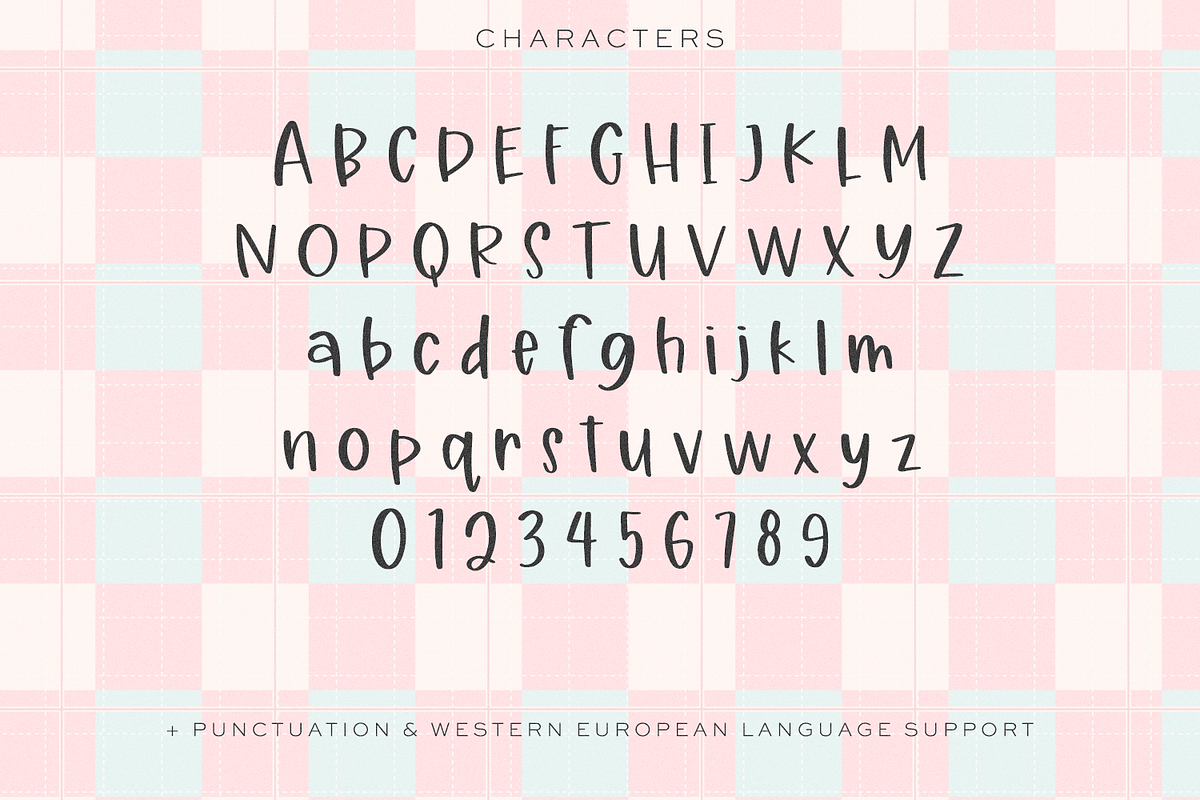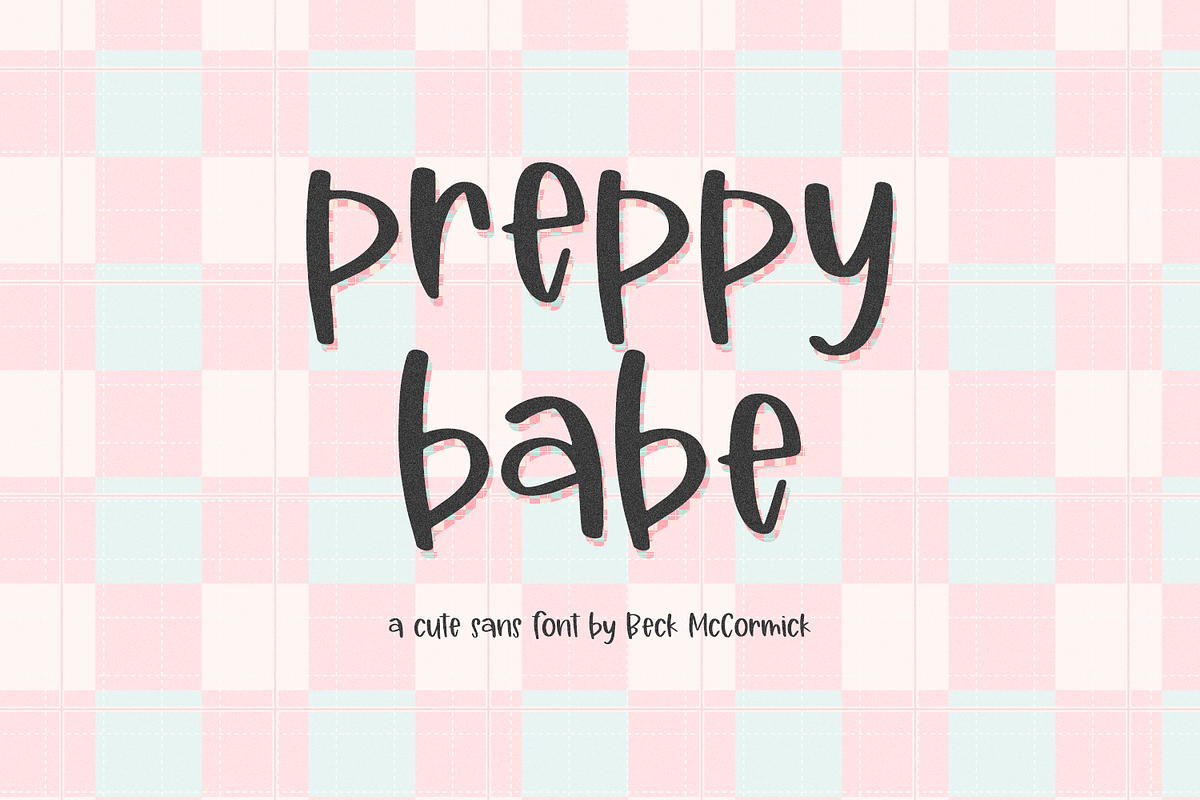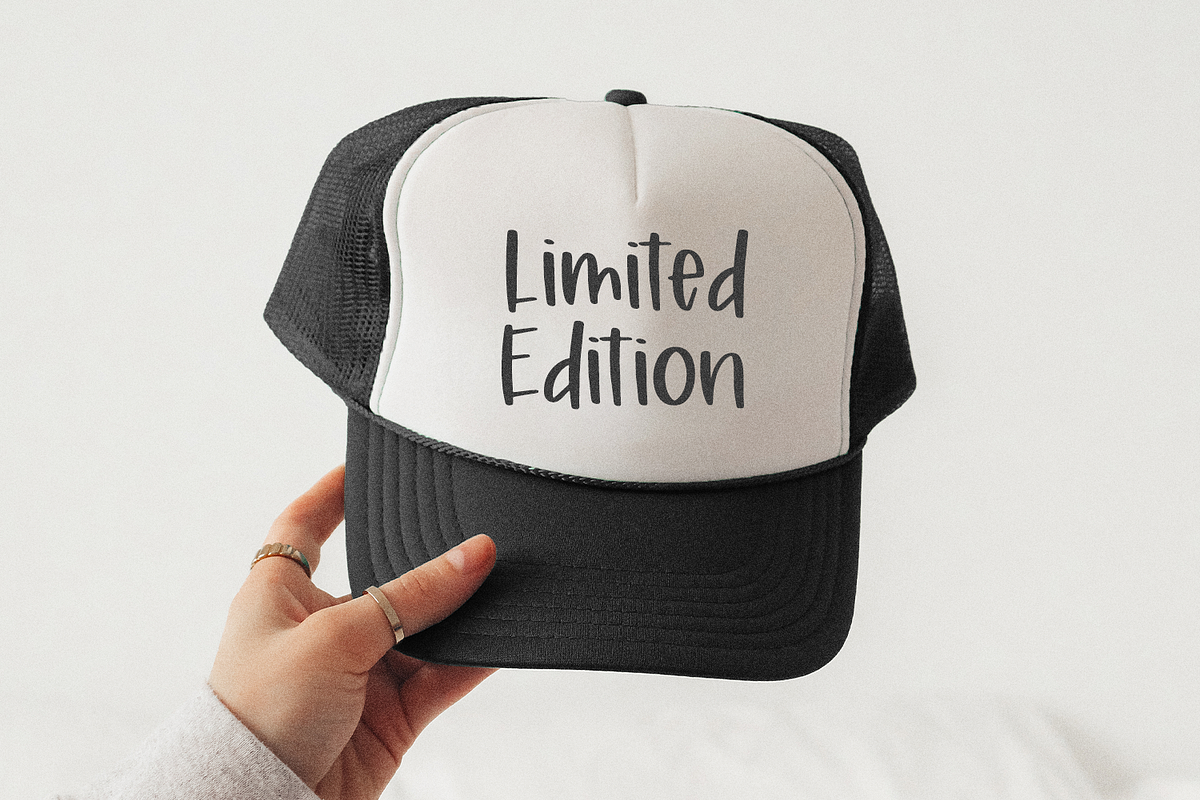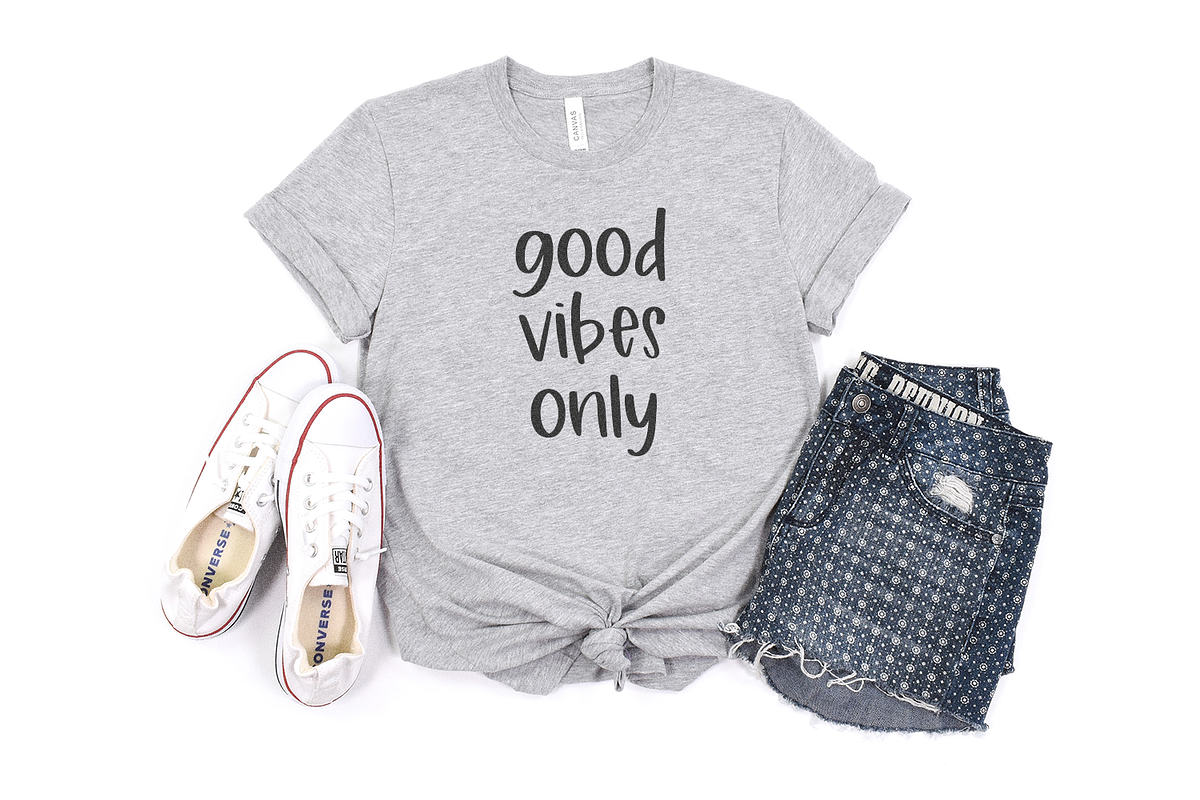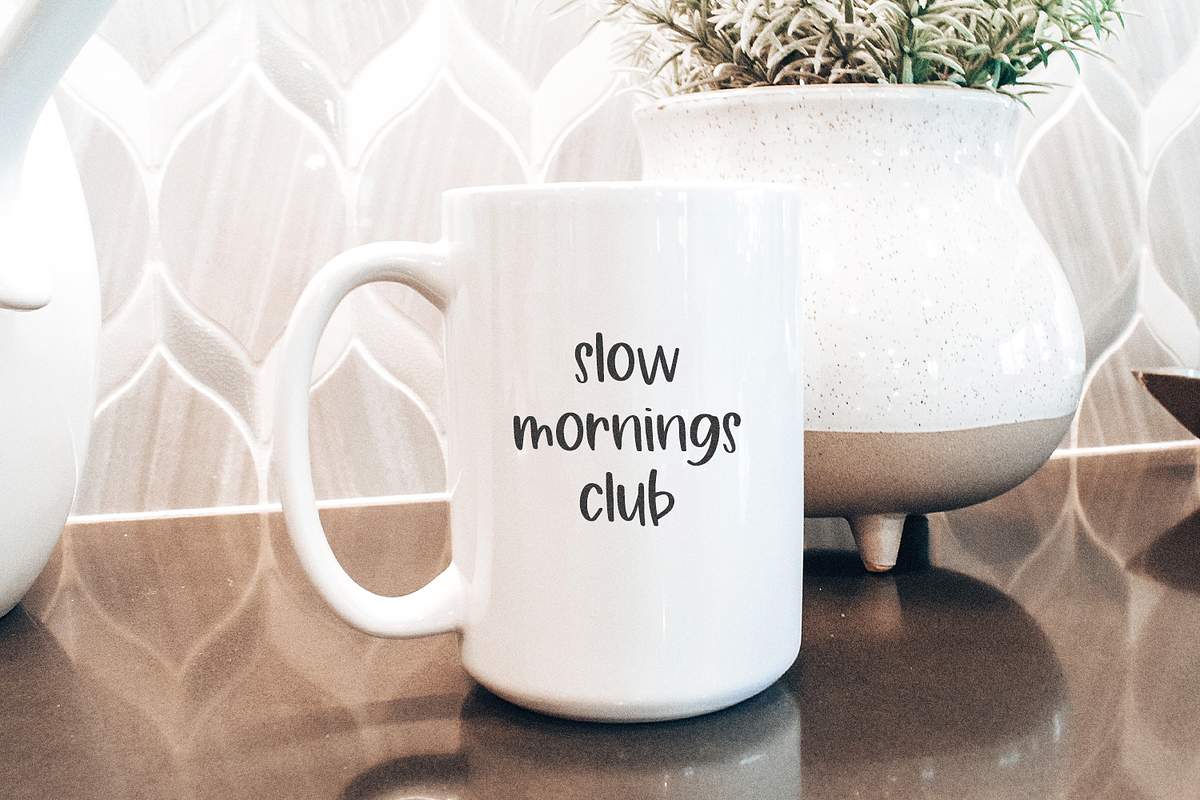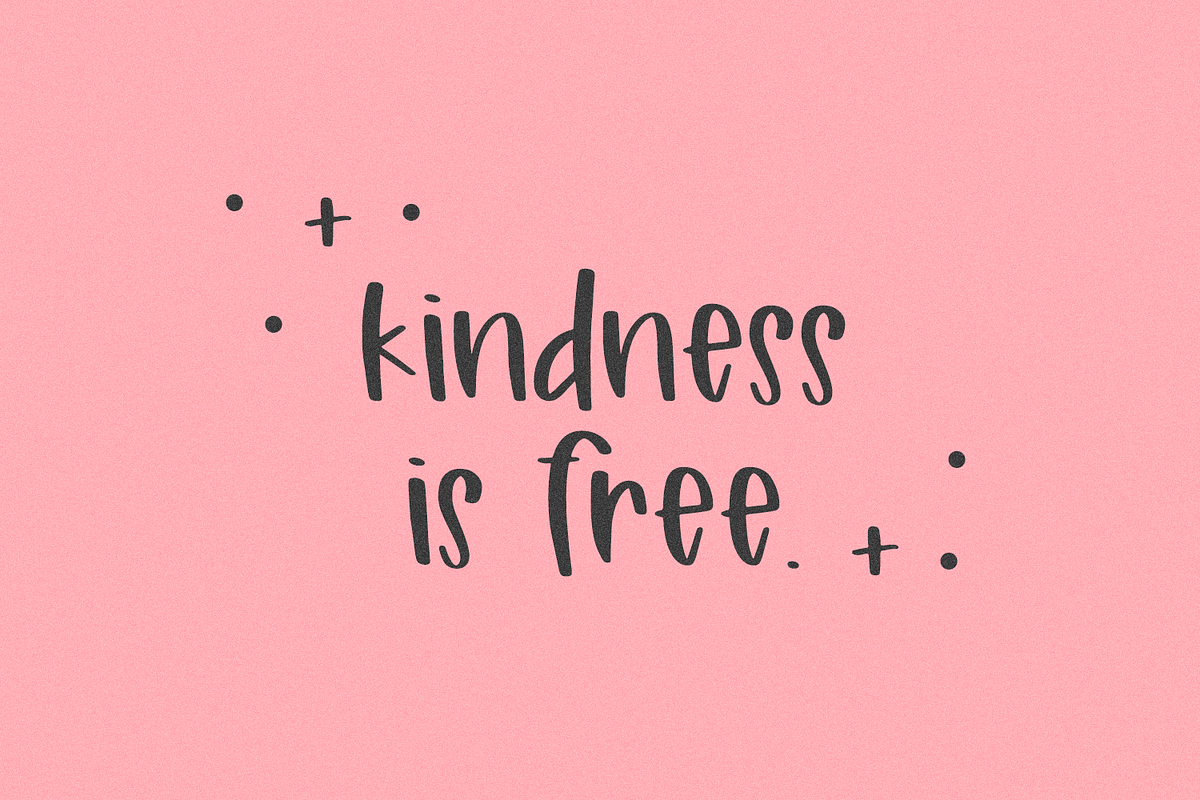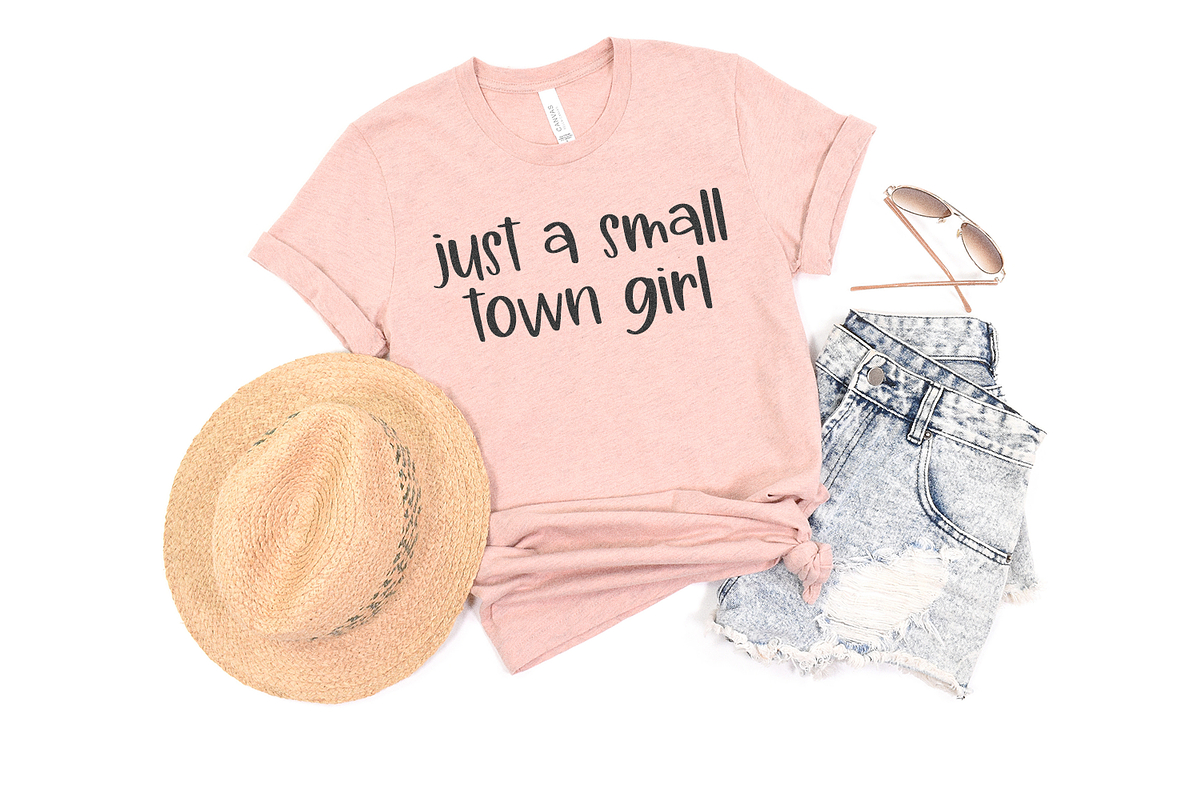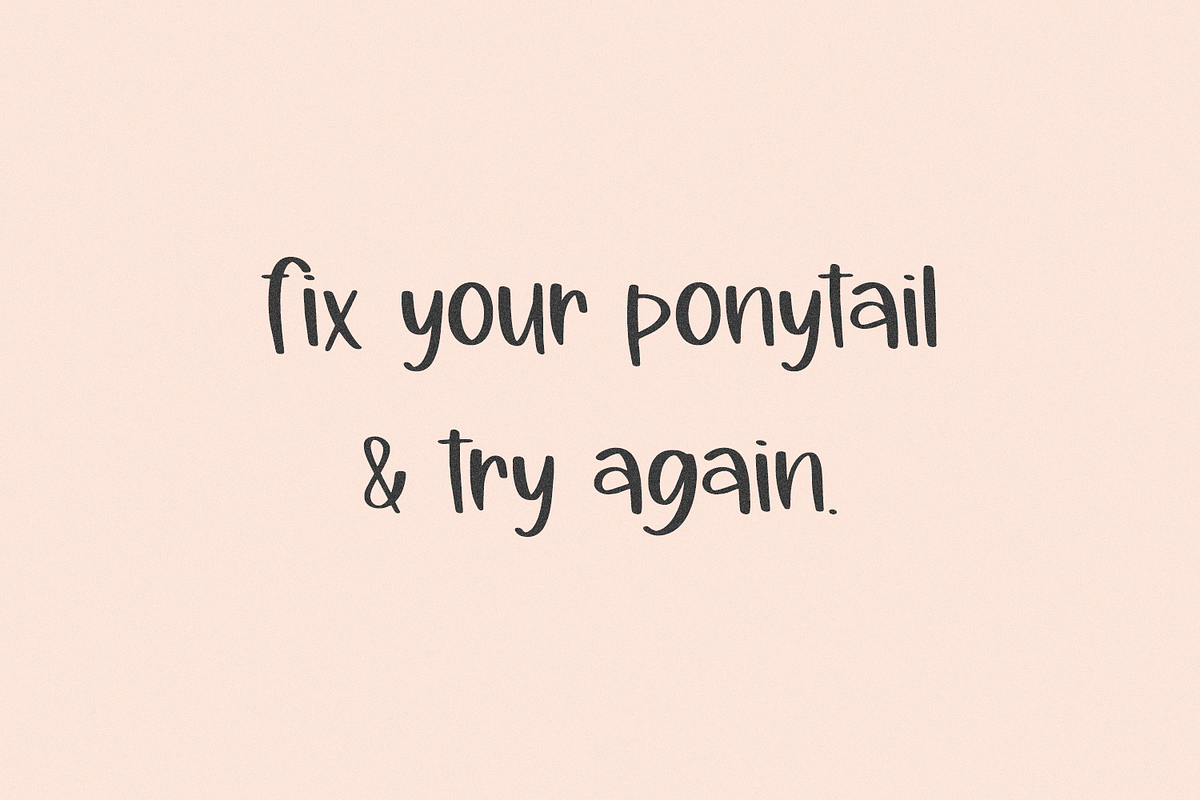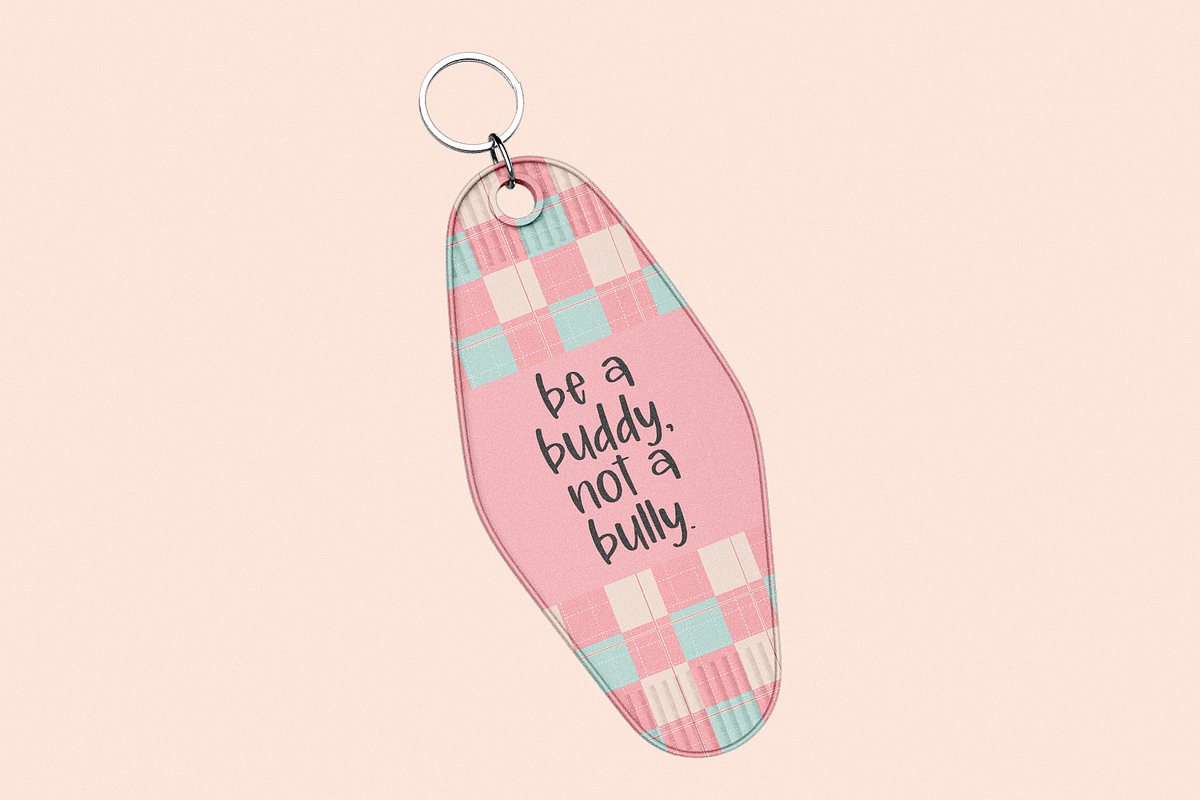
Preppy Babe Handwriting Font
Preppy Babe Sans is an adorable handwritten sans font. This font is what you wish your teenage handwriting looked like whenever you were writing notes to your friends and trying to make your assignments more interesting than they actually were. Preppy Babe Sans is perfect for logos & branding, greeting cards, painted banners, digital planners, note-taking apps, Canva, Cricut projects, Silhouette projects, designing SVG files, laser cutting projects, & more.
Preppy Babe Sans includes:
- full upper + lowercase characters
- numbers + punctuation